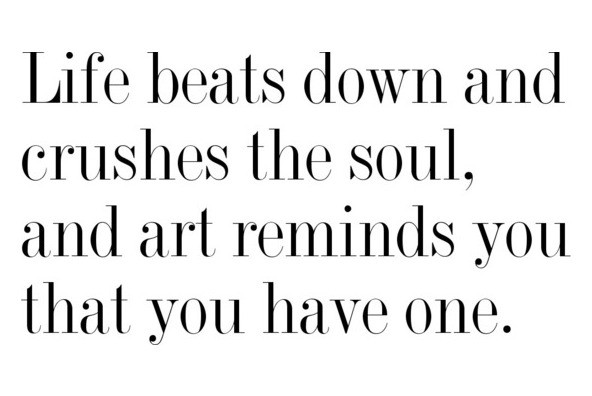
Designed by Edward Benguiat in 1960, Torino is a classic and thin serif release by URW. Contains language support for West, East, Turkish, Baltic, and Romanian.